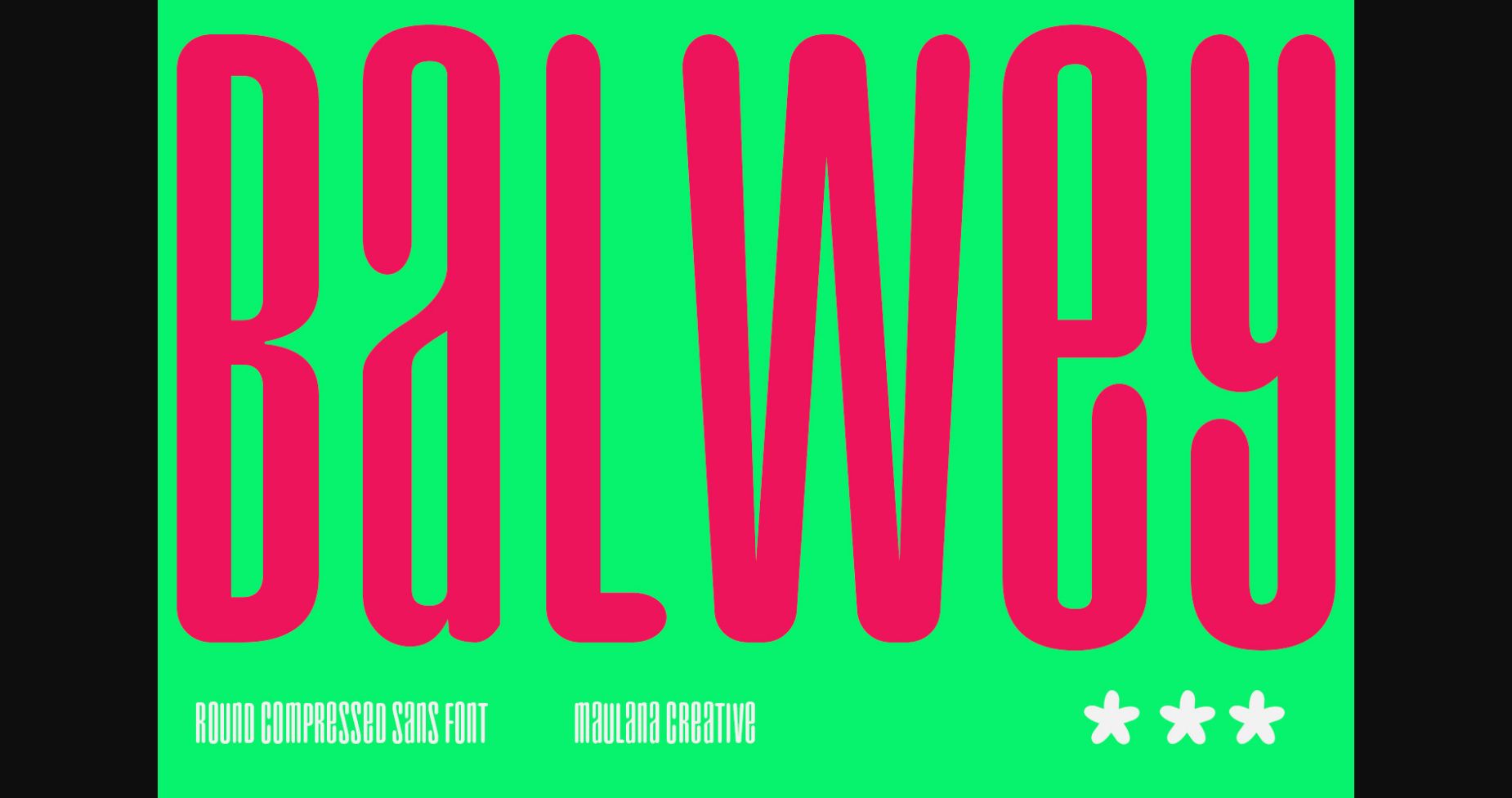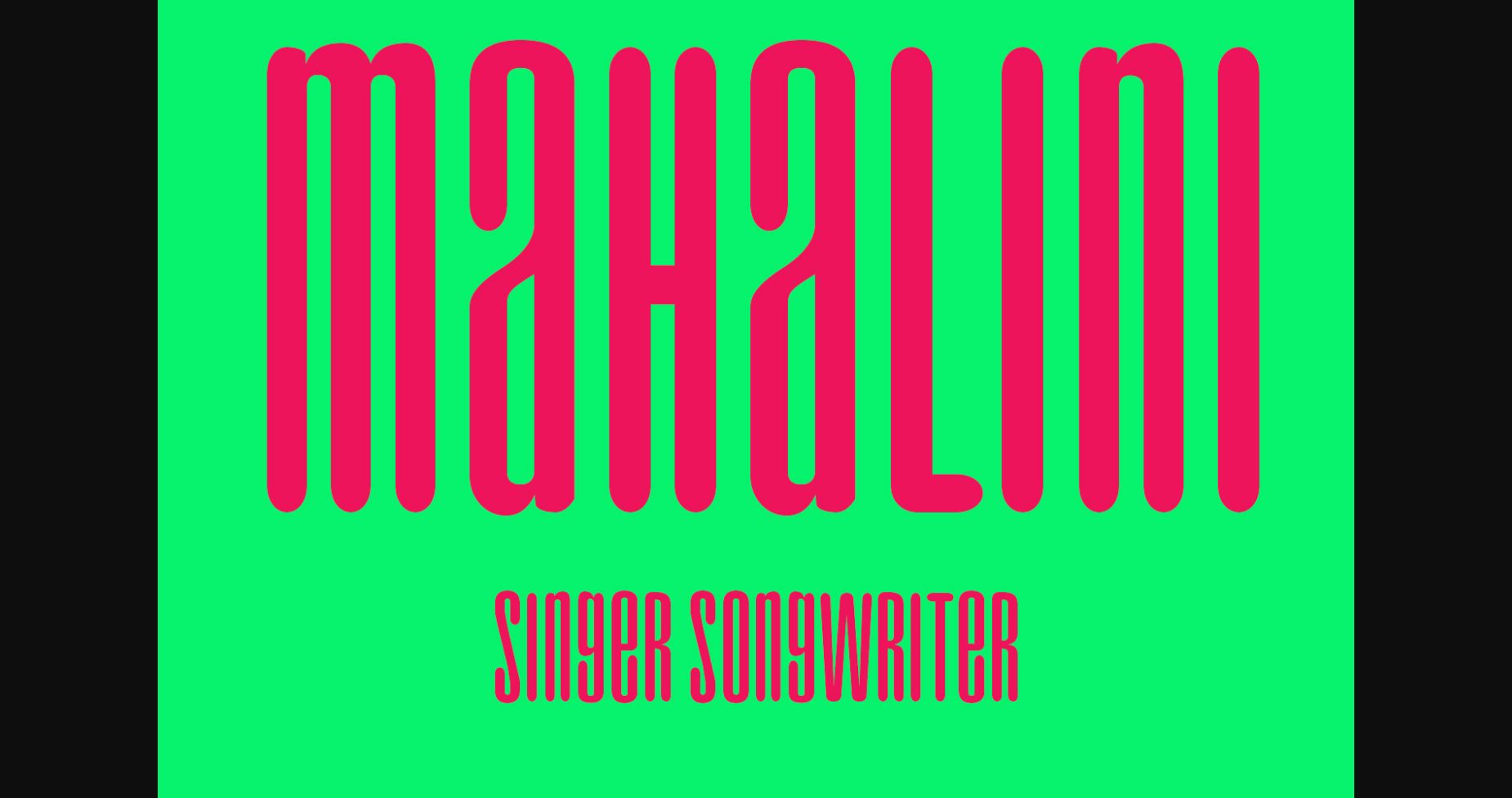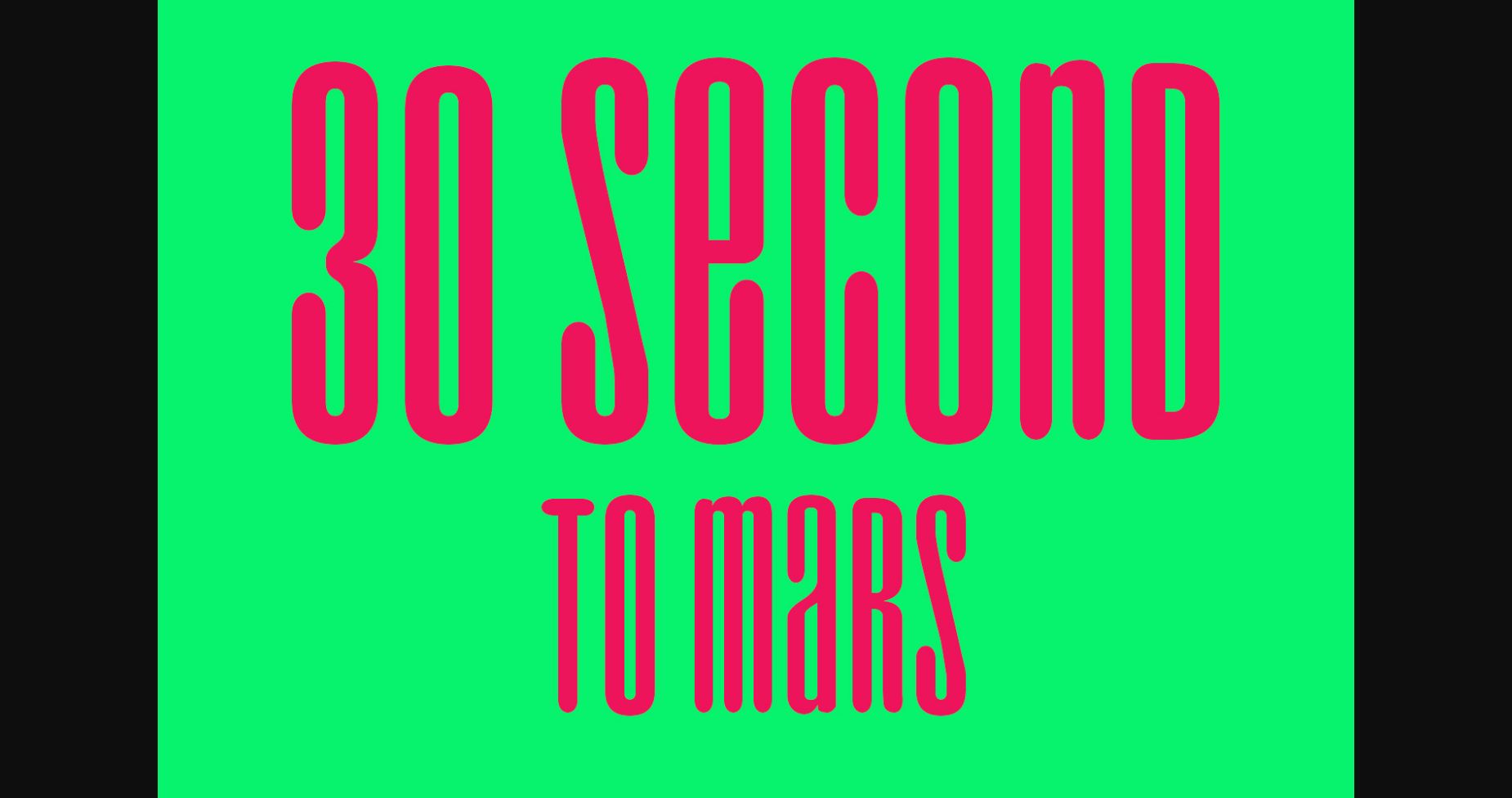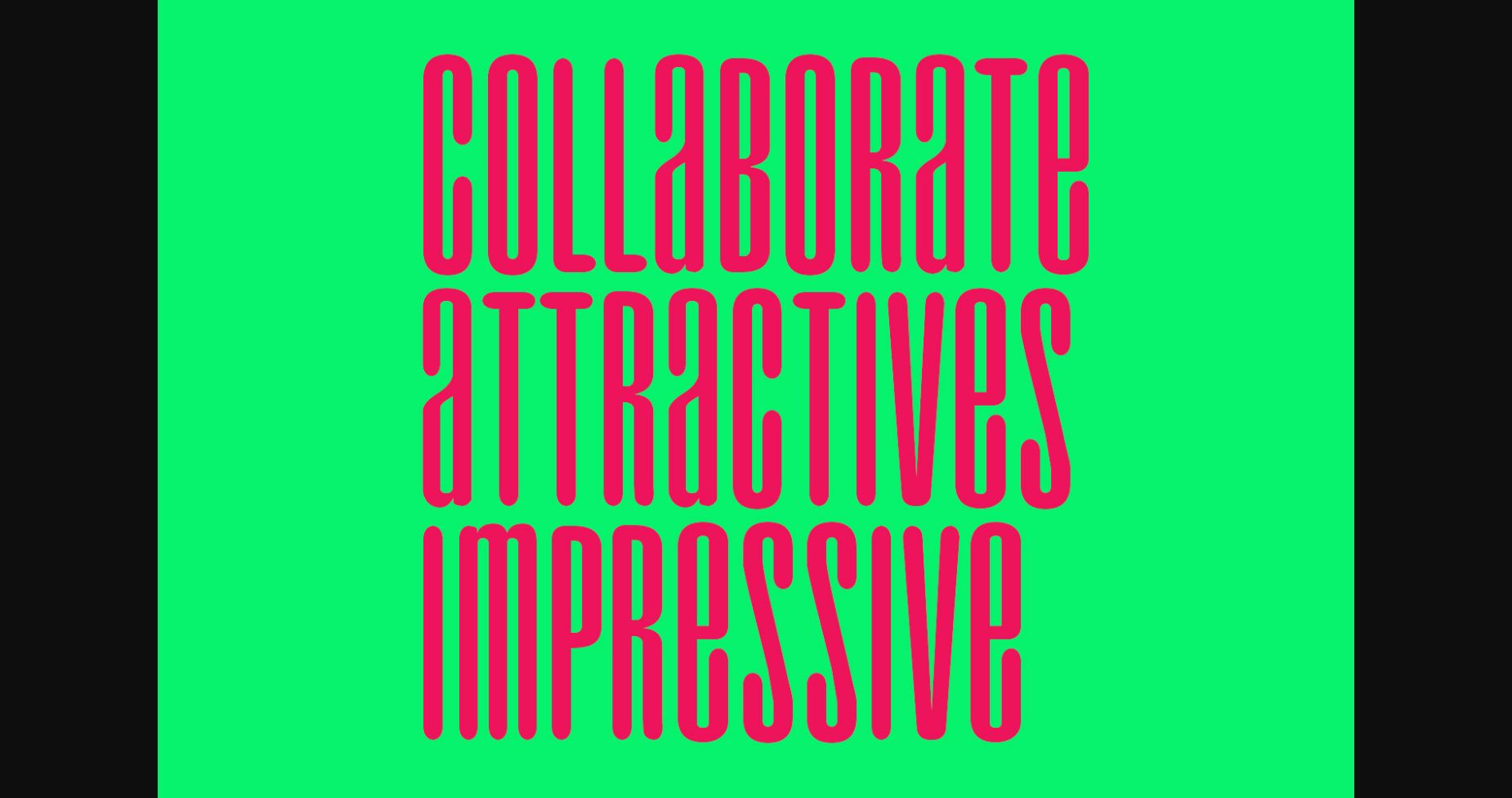
About Balwey Font
Balwey is a modern, compressed sans-serif font perfect for headlines and logos. Its sharp, clear lines make it easy to read, while its condensed proportions give it an eye-catching, attractive appearance. Suitable for both print and digital applications, this font is sure to make a statement.